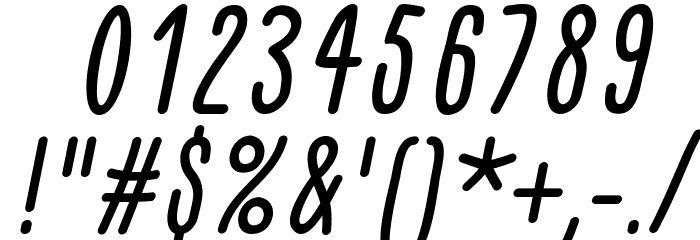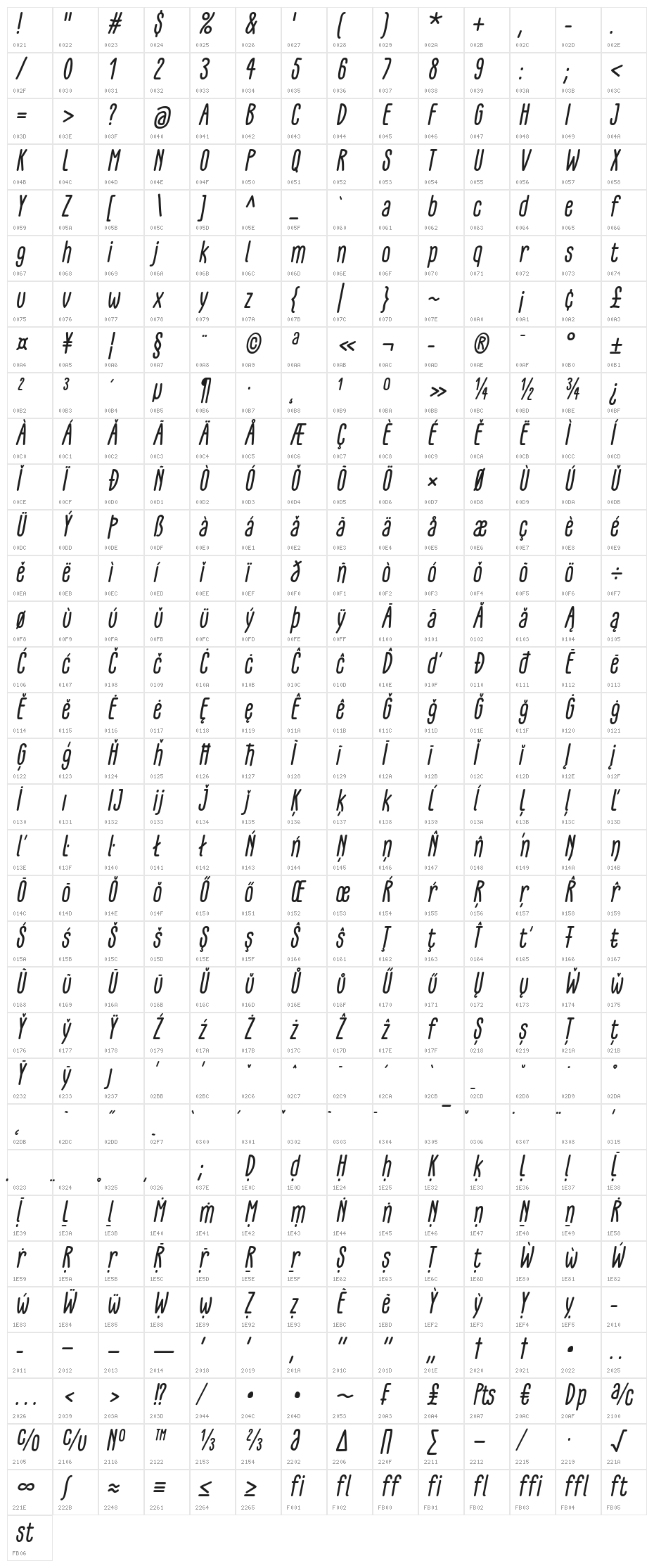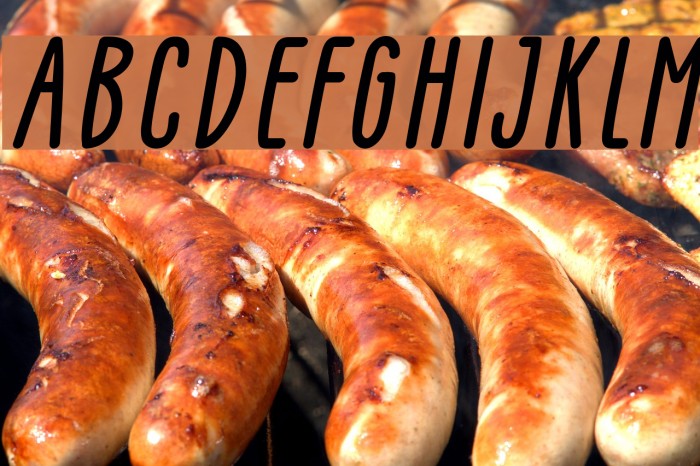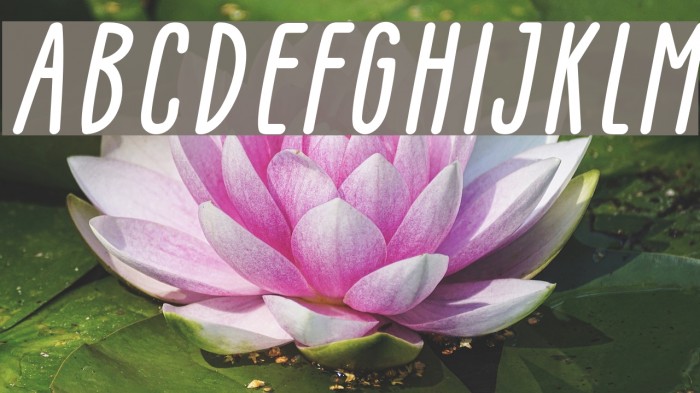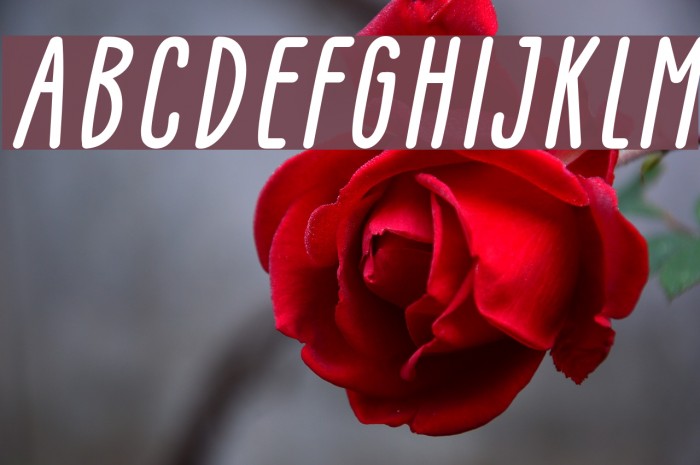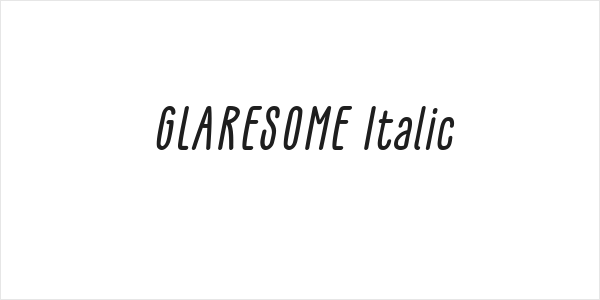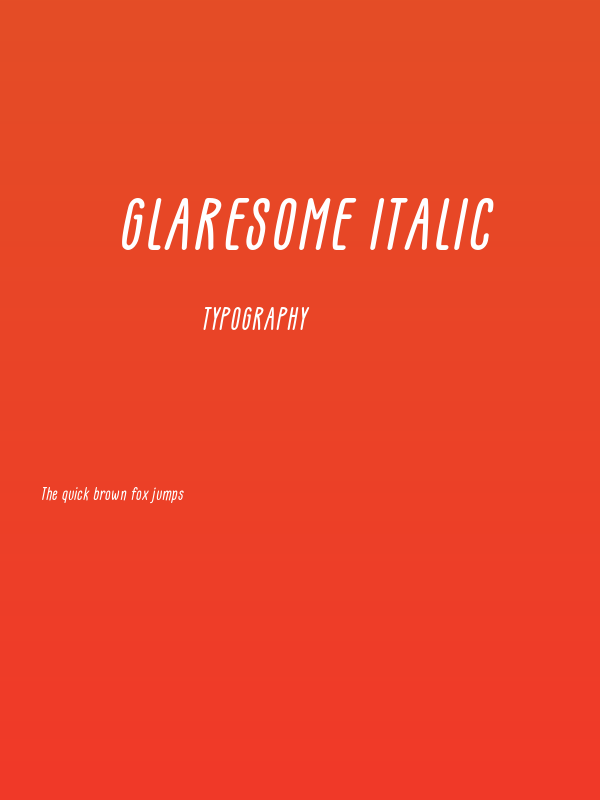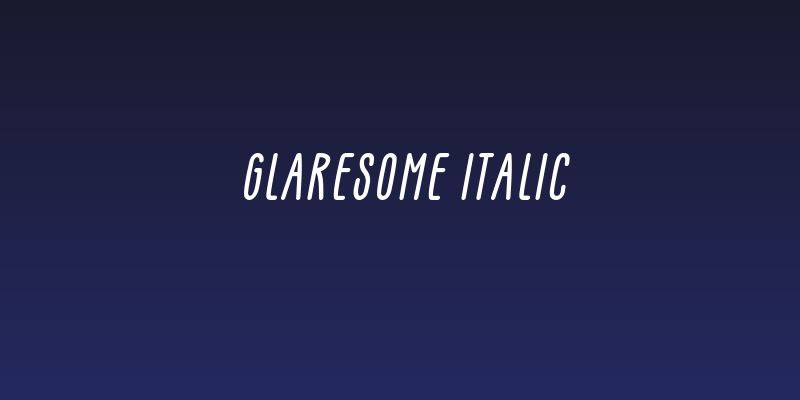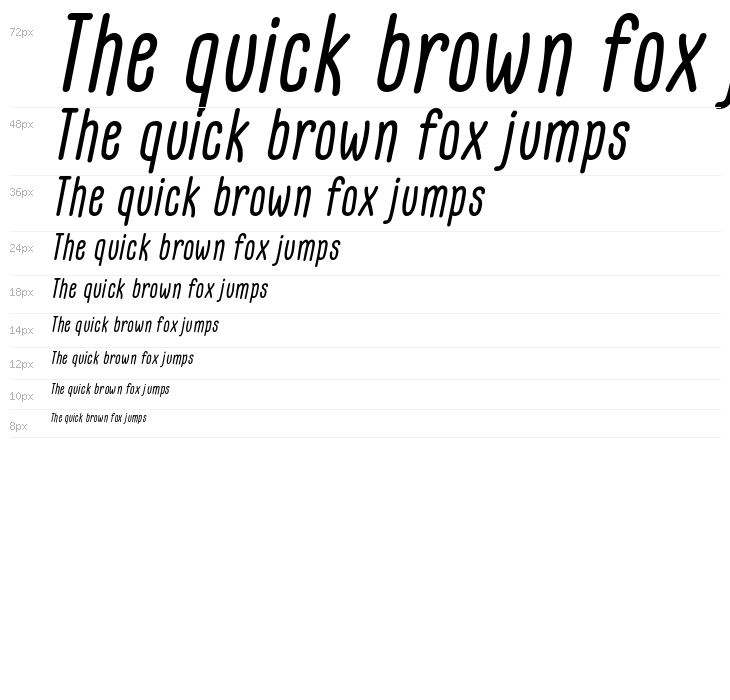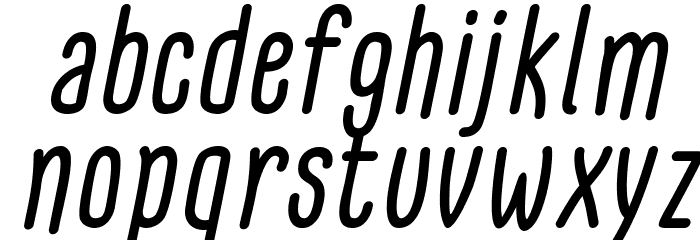
GLARESOME Italic Font
GLARESOME Italic Description
This font features a sleek, italicized style with elongated, slightly curved characters that convey a sense of motion and fluidity. The uppercase letters are tall and narrow, while the lowercase letters maintain a consistent height, creating a harmonious balance. The numerals are distinct and easy to read, with a uniform stroke width that enhances legibility. Special characters are well-integrated, maintaining the font's overall aesthetic. The design is modern and versatile, suitable for a variety of applications where a touch of elegance and dynamism is desired.
| Proposed Projects | Ideal for branding, advertising, and editorial design where a modern and elegant touch is needed. |